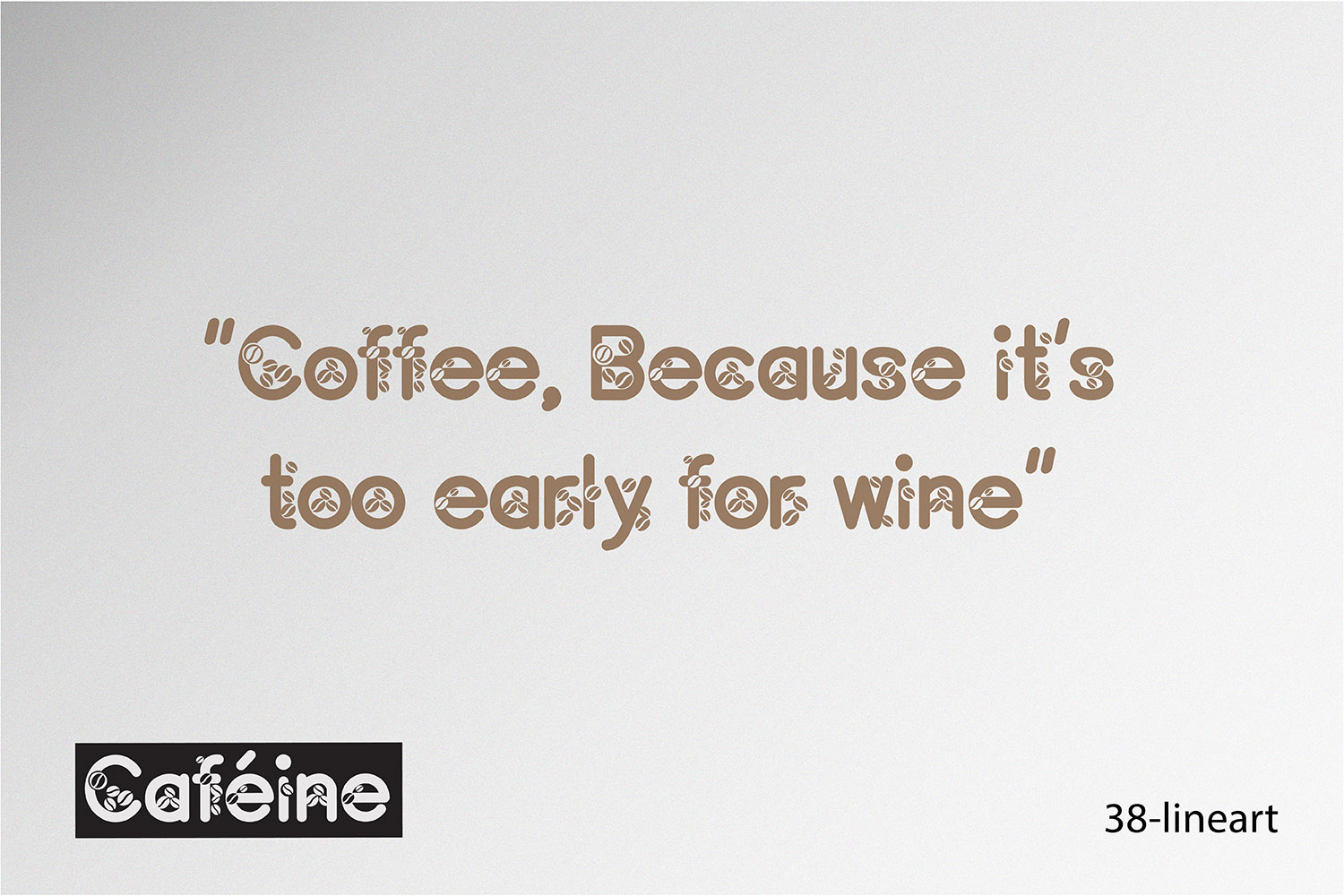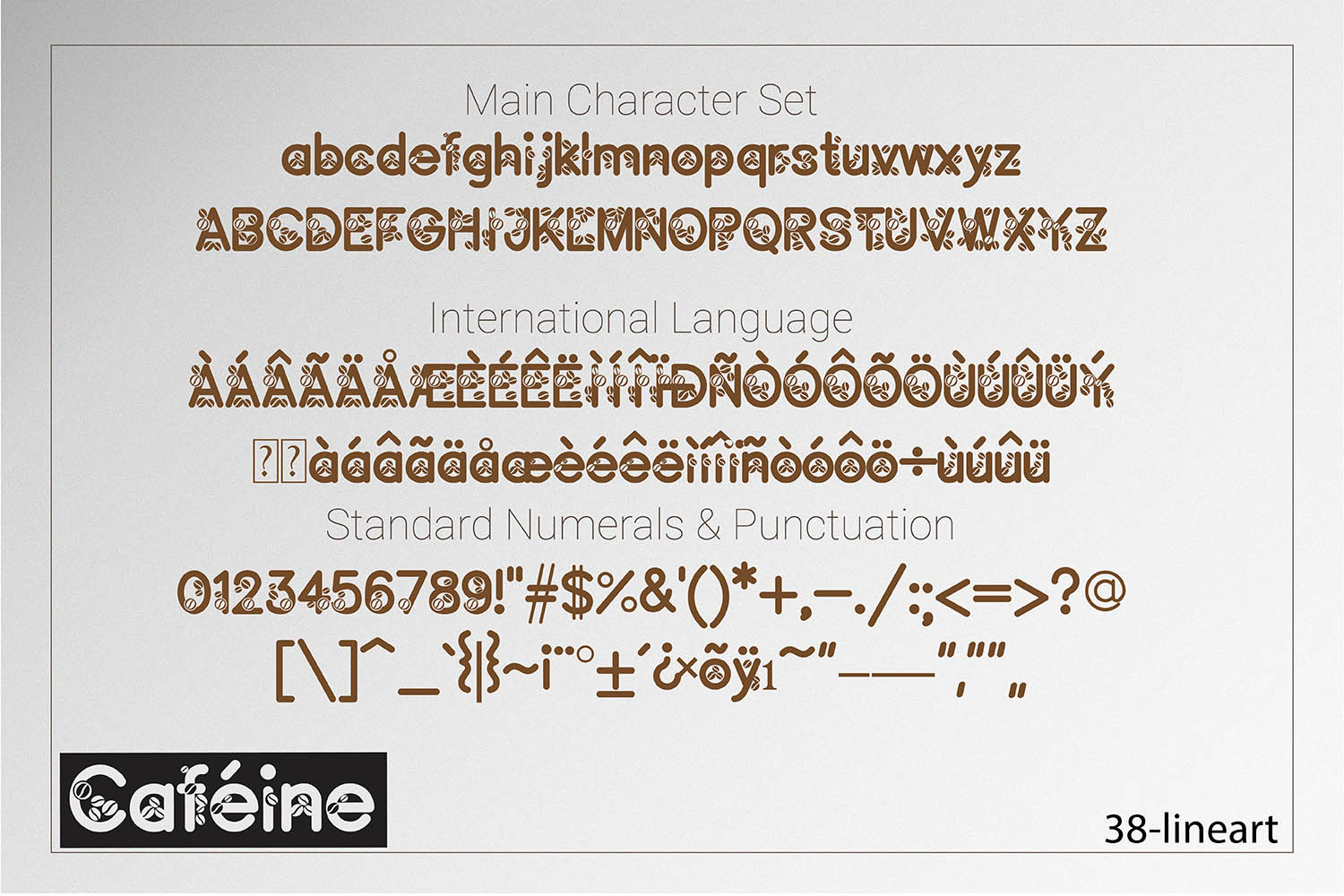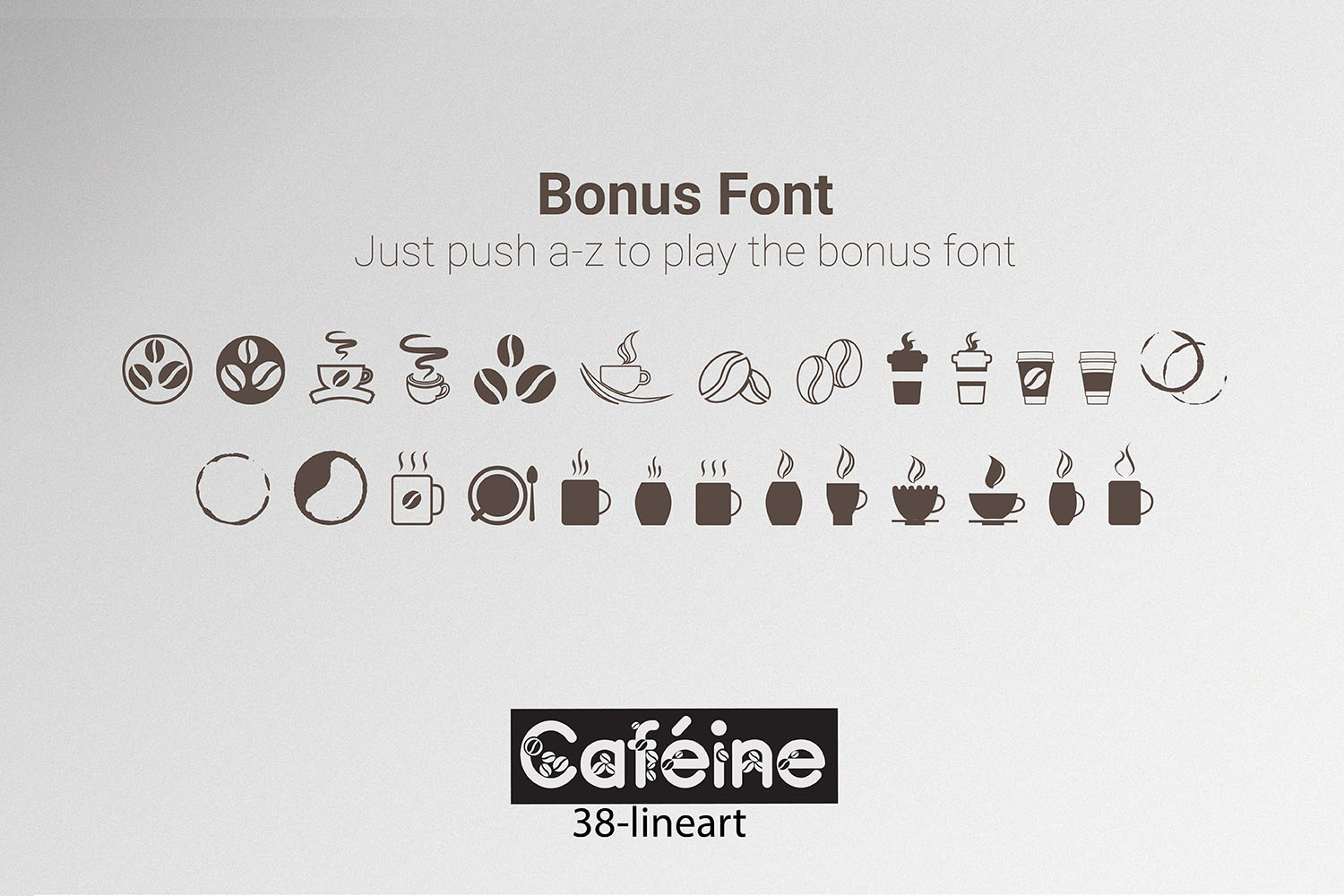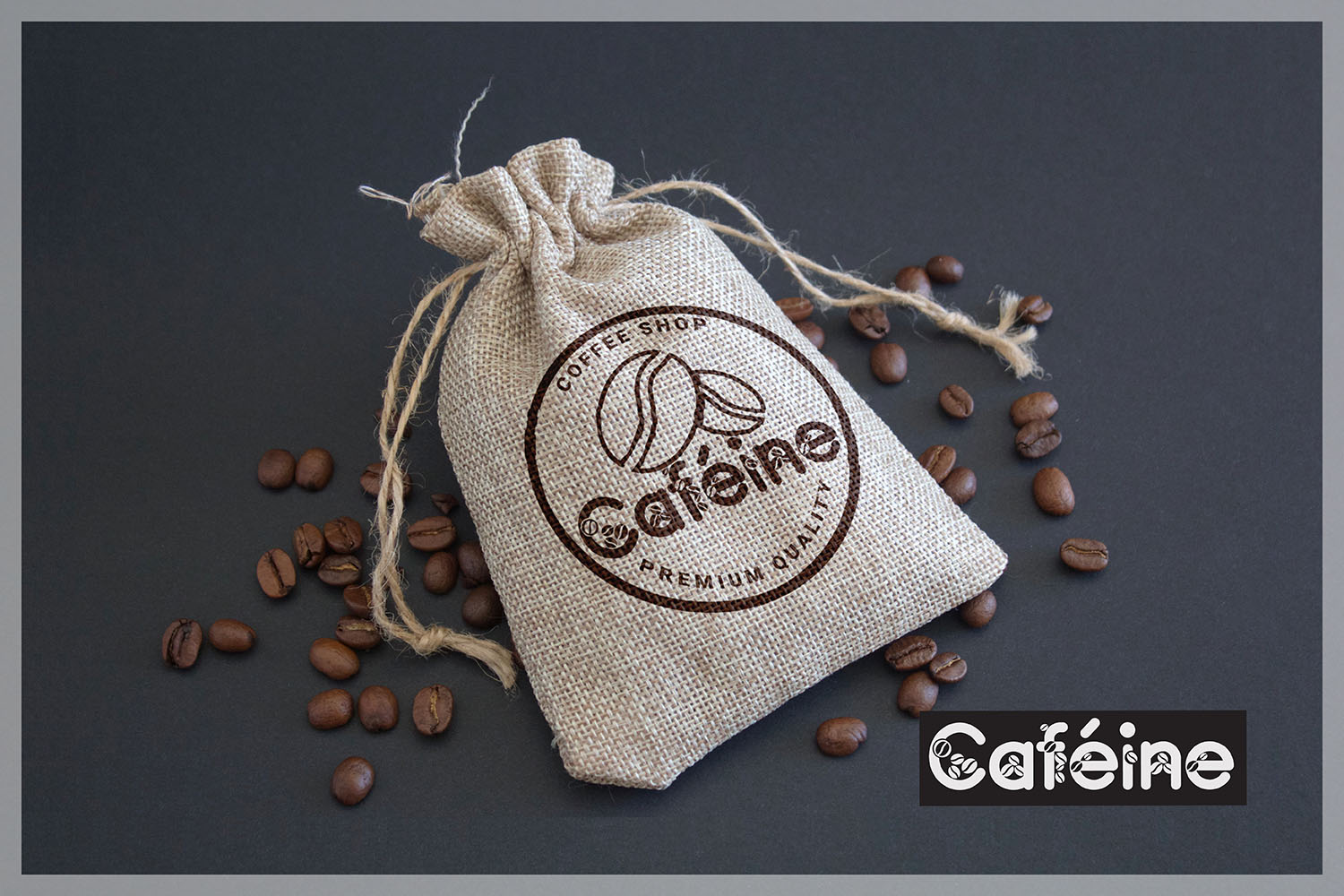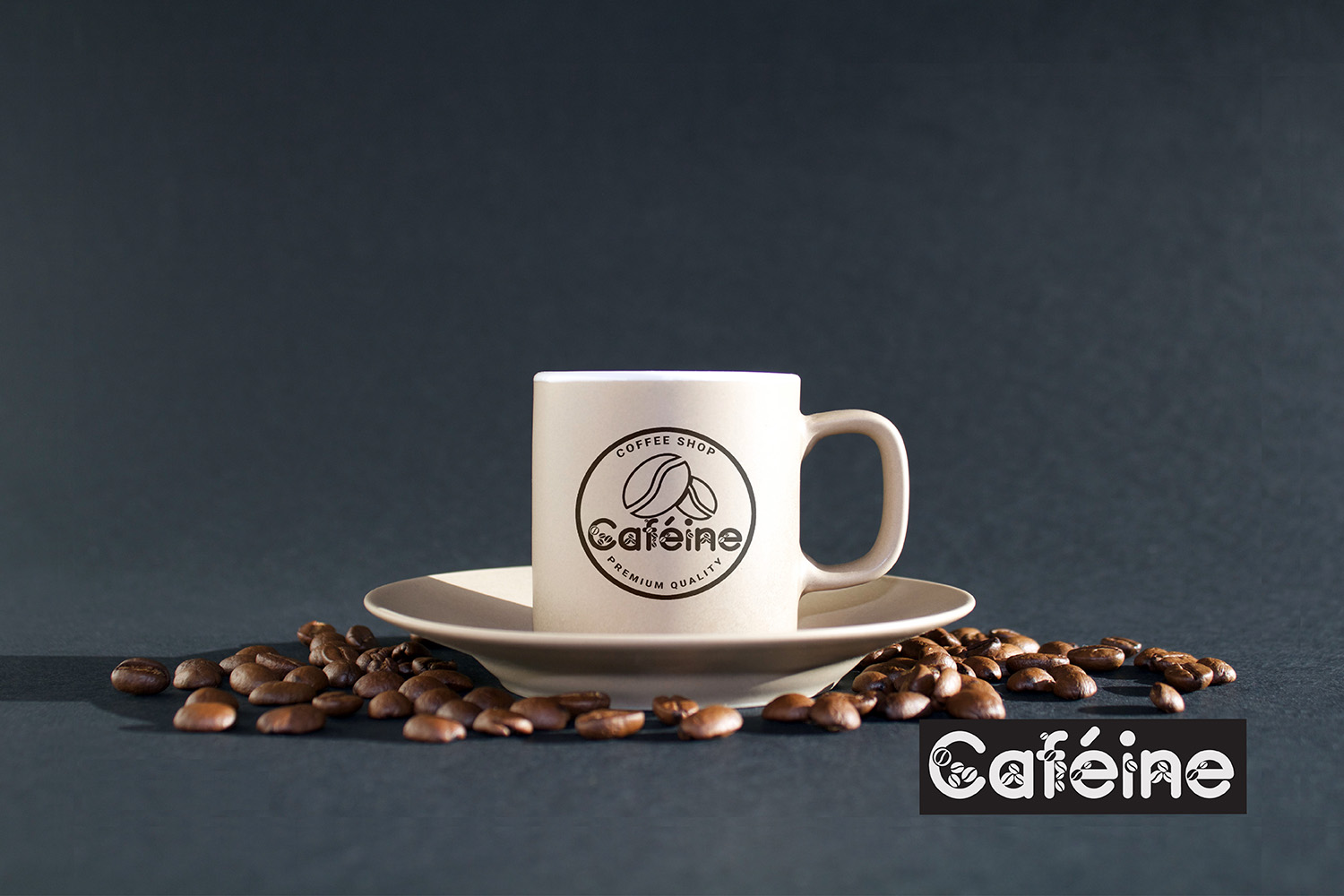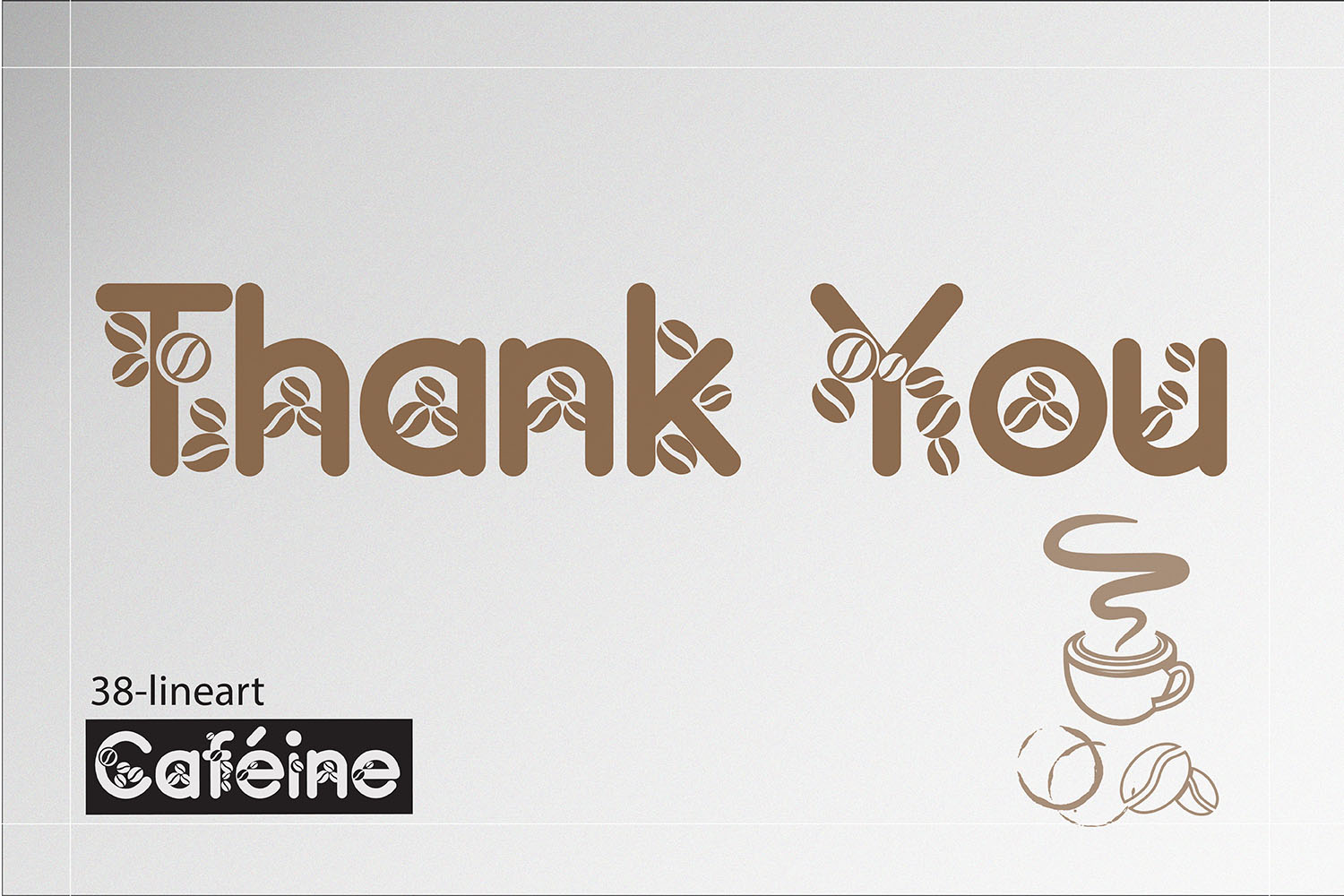
Caféine Font: The Perfect Brew for Your Design Needs
Are you a coffee lover, designer, or crafter looking for a unique font to spice up your projects? Look no further than Caféine Font, a beautiful, coffee-themed font that’s sure to perk up your designs. In this article, we’ll dive into the details of this delightful font, its features, and how it can elevate your creative projects.
The Story Behind Caféine Font
Caféine Font was crafted with a passion for coffee and a keen eye for detail. The font’s creator aimed to capture the essence of coffee culture, infusing it with a quirky twist that’s sure to delight. The result is a fun, decorative font that’s perfect for use in the coffee business and community. Whether you’re designing a logo, packaging, or marketing materials for a coffee shop, café, or coffee-related product, Caféine Font is the perfect choice.
Design Features of Caféine Font
Caféine Font boasts a range of design features that make it a standout in the world of typography. The font is made with intricate details of coffee beans, giving it a unique and recognizable look. The letters are carefully crafted to resemble coffee beans, complete with subtle texture and shading that adds depth and dimension. The overall effect is a font that’s both visually appealing and highly thematic.
With Caféine Font, you can use it for a variety of projects, from digital designs to print materials, and even craft projects like signage, invitations, and more.
How to Use Caféine Font in Your Designs
Caféine Font is incredibly versatile and can be used in a wide range of design projects. Here are a few ideas to get you started:
- Coffee shop branding: Use Caféine Font to create a unique logo, menu, or packaging for a coffee shop or café.
- Coffee product design: Design coffee mugs, tote bags, or other products with Caféine Font for a fun and thematic look.
- Digital designs: Use Caféine Font in social media graphics, blog posts, or website headers to add a touch of whimsy.
- Crafting: Use Caféine Font to create printable art, signs, or invitations for coffee-themed parties or events.
To get the most out of Caféine Font, here are a few tips:
- Experiment with font sizes and colors to create visual interest.
- Pair Caféine Font with other fonts to create a unique contrast.
- Use Caféine Font consistently across multiple design elements to create a cohesive brand look.
- Don’t be afraid to get creative and try out new and innovative uses for the font.
Caféine Font is a one-of-a-kind font that’s sure to delight designers, crafters, and coffee lovers alike. With its unique design features, comprehensive package, and versatility, it’s the perfect choice for a wide range of creative projects. So why not give Caféine Font a try and see how it can elevate your designs?
Whether you’re a seasoned designer or a crafty DIY enthusiast, Caféine Font is sure to inspire your creativity and add a touch of whimsy to your projects. So go ahead, grab a cup of coffee, and get creative with Caféine Font!